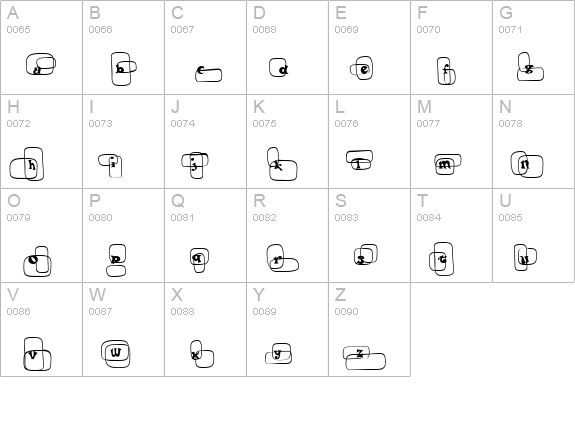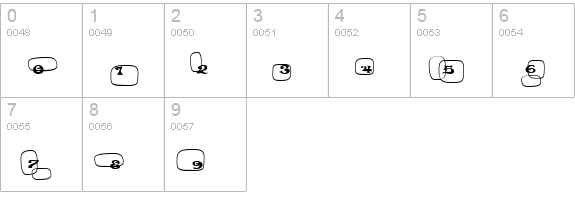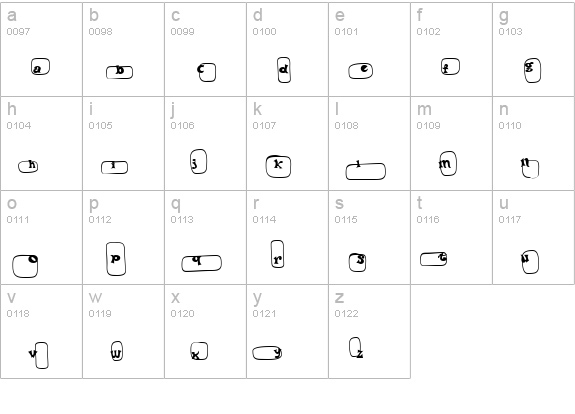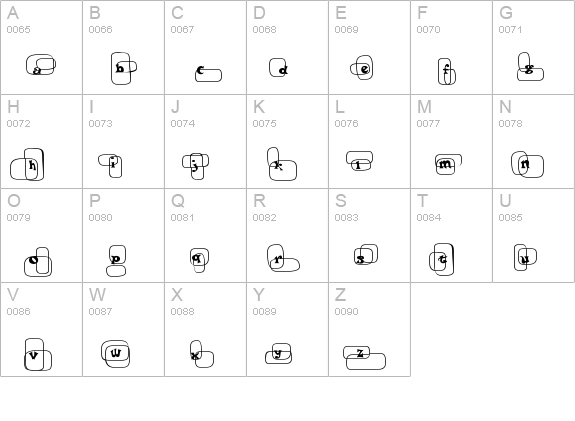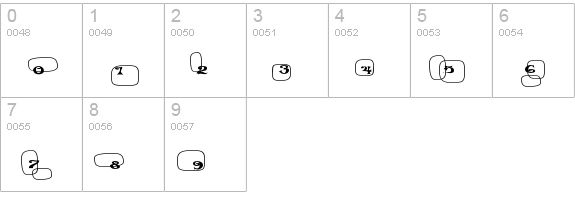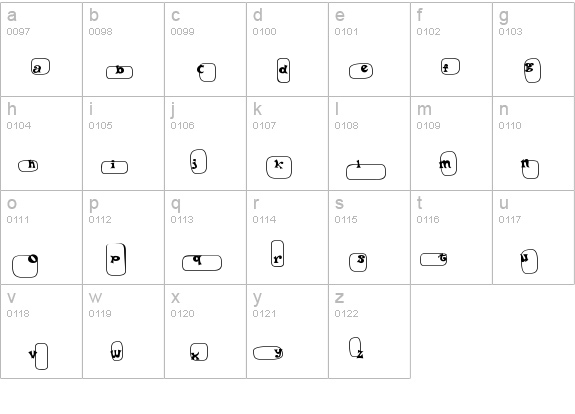
Po Beef Font Details
Introducing Po Beef font, a modern and stylish typeface that exudes sophistication and charm. This versatile font is perfect for a wide range of design projects, from branding to packaging to social media graphics. With its sleek lines and elegant curves, Po Beef font will make your text stand out and leave a lasting impression on your audience. What's even better is that Po Beef font is completely free to download at FontsMarket.com. Yes, you read that right – you can get your hands on this stunning font without spending a dime. So why wait? Enhance your designs and elevate your creativity with the beautiful Po Beef font today.